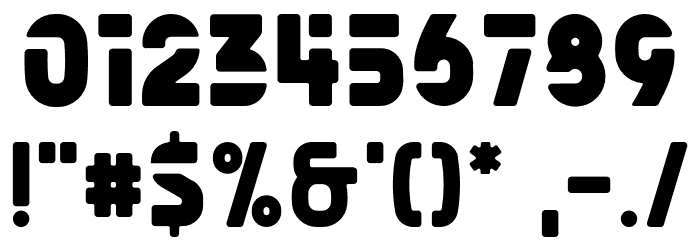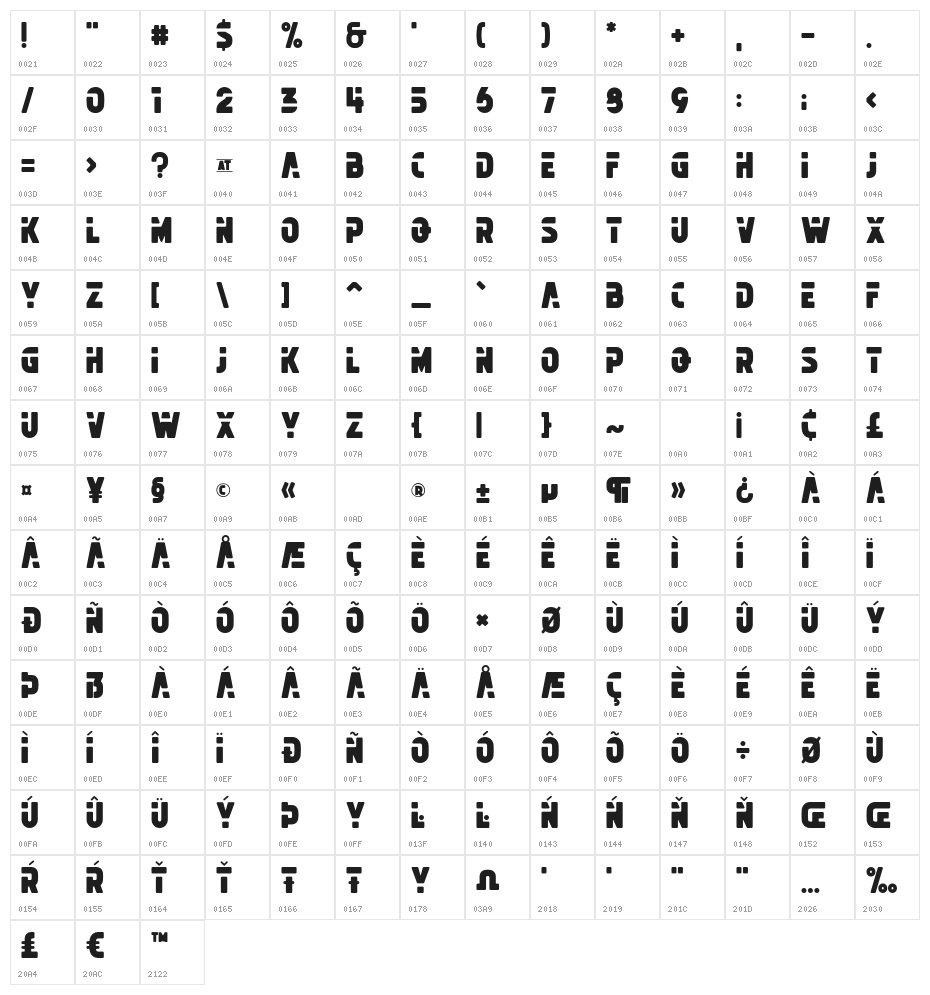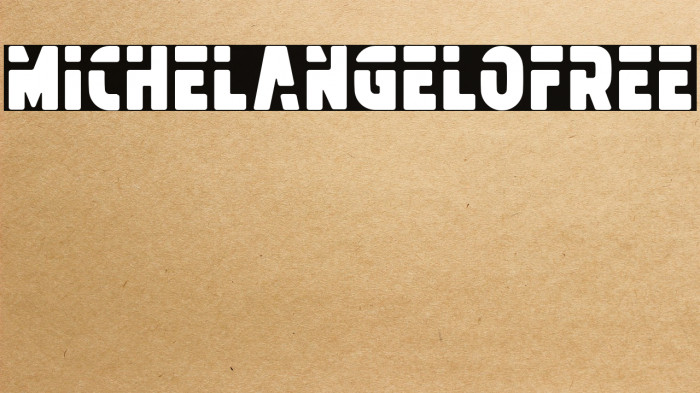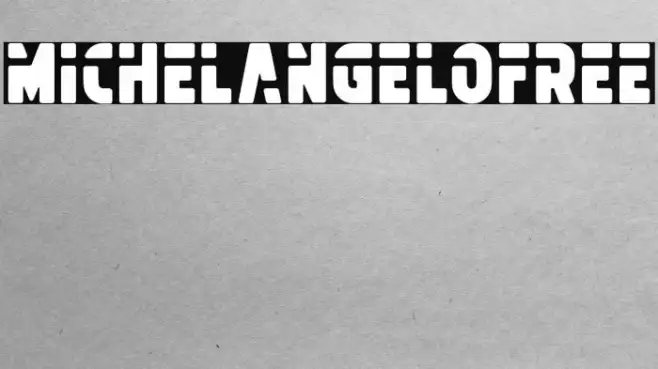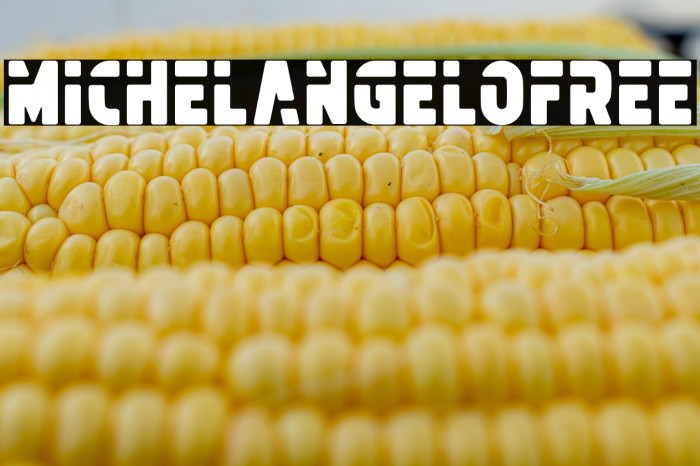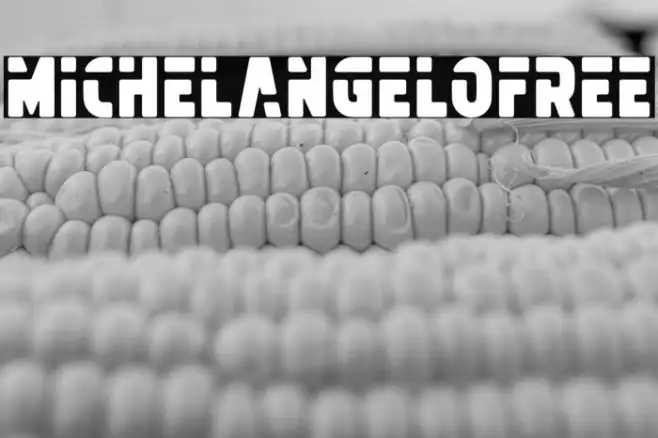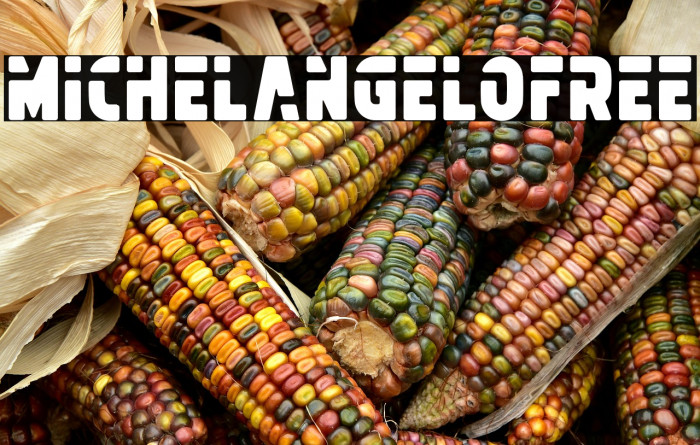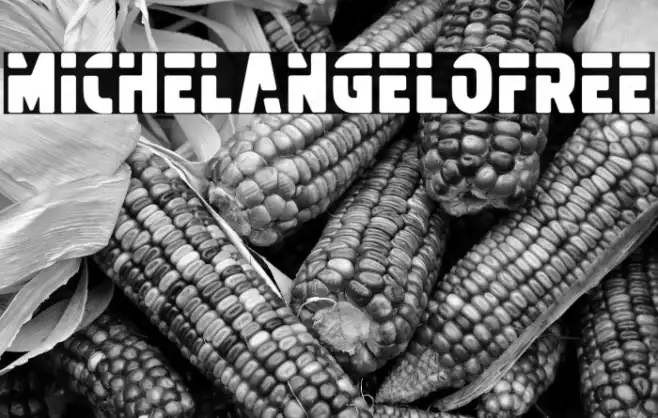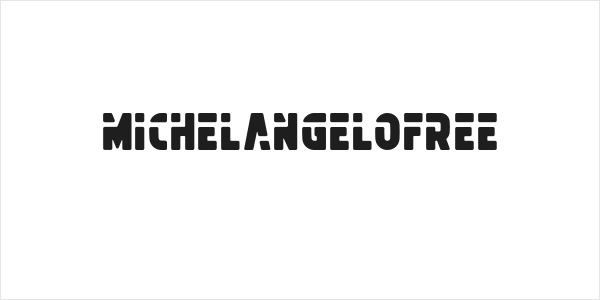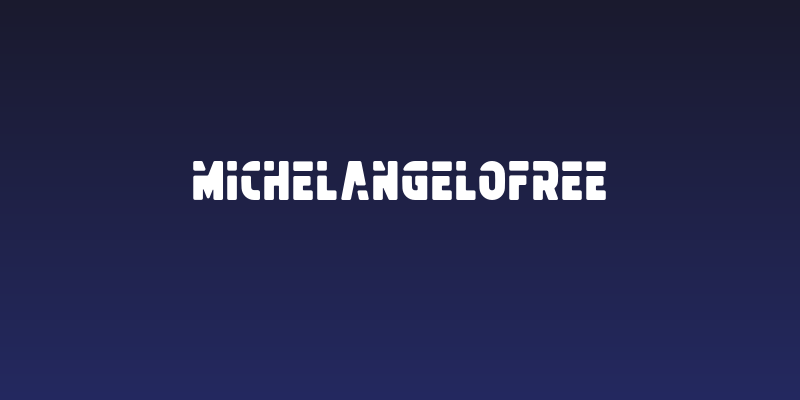
MichelangeloFREE Font
MichelangeloFREE Description
This font features a bold, stencil-like design with strong geometric shapes and high contrast. The characters are blocky and robust, with a distinct industrial feel. The uppercase letters are uniform in height, while the lowercase letters maintain a consistent style that complements the uppercase. The numbers and special characters follow the same design principles, ensuring a cohesive look across all elements. The font's boldness and unique cut-out style make it stand out, ideal for attention-grabbing designs.
| Overall Style | Modern, Industrial |
| Proposed Projects | Ideal for posters, signage, branding, and any project requiring a strong, industrial aesthetic. |